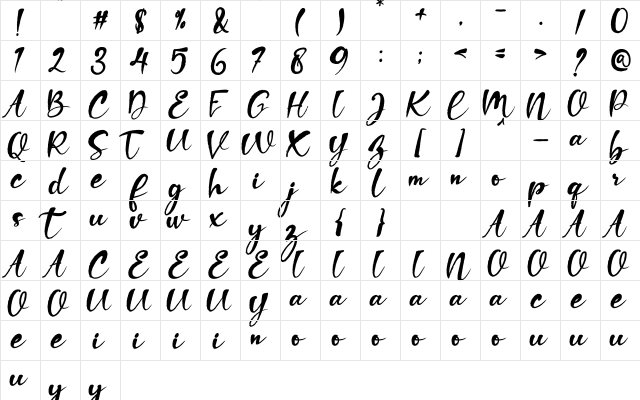
Bonogoda Regular
Design Context for Bonogoda Typeface
Bonogoda is a composed and adaptable typeface that performs quietly and consistently across a wide range of design contexts.